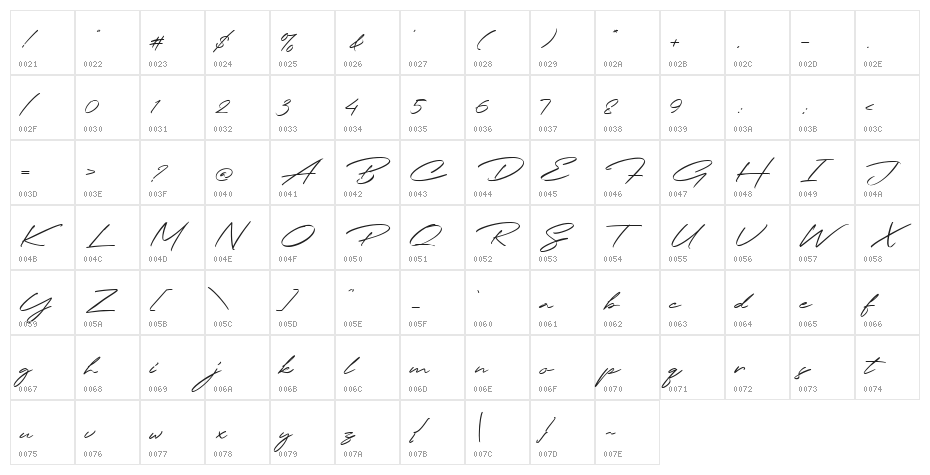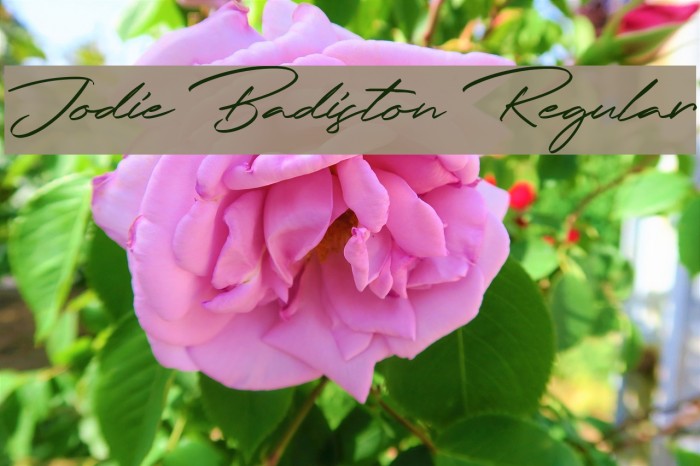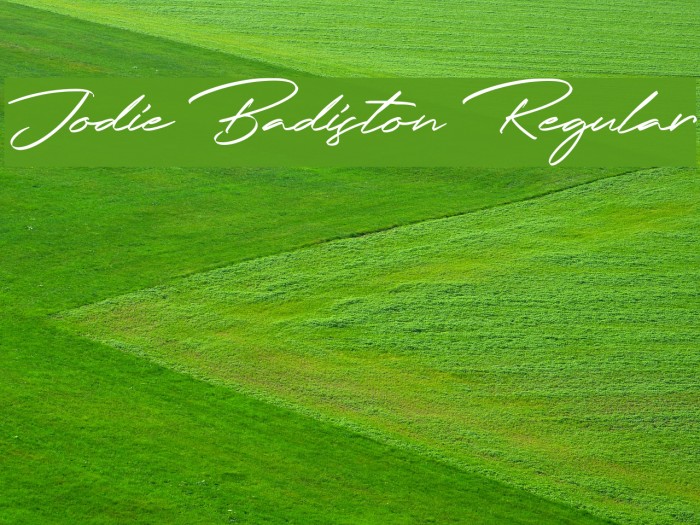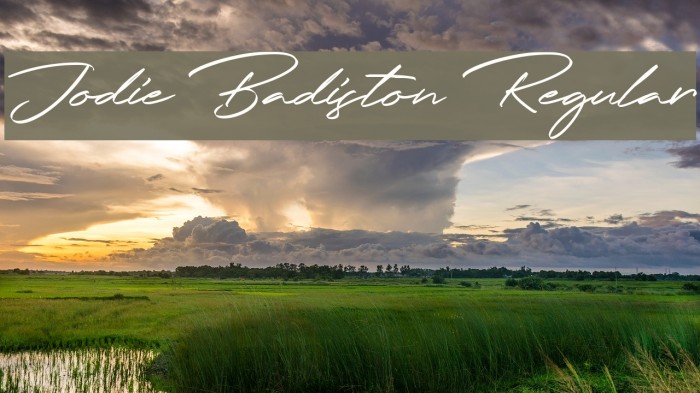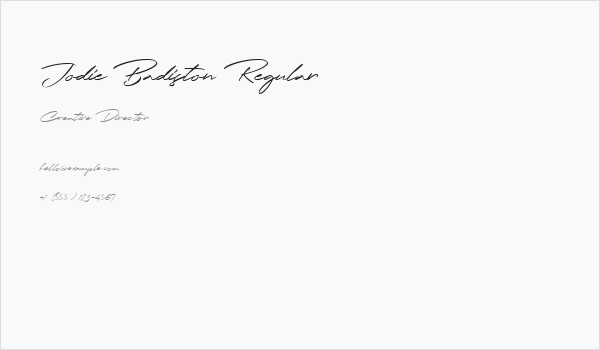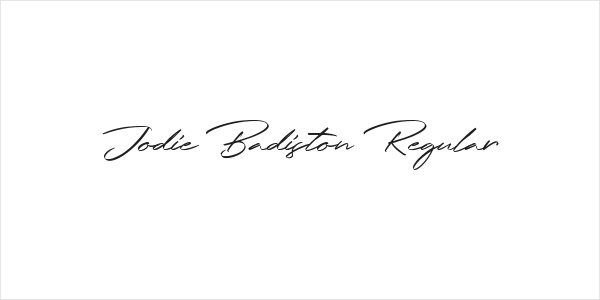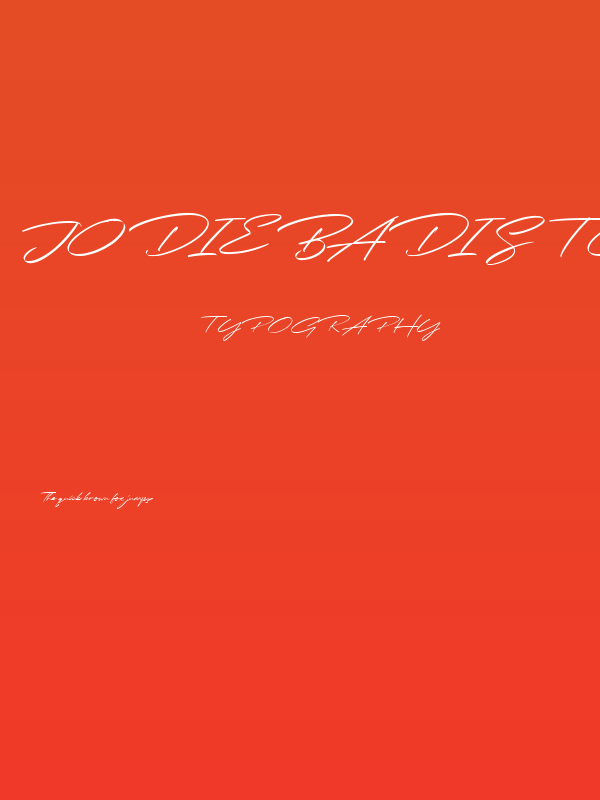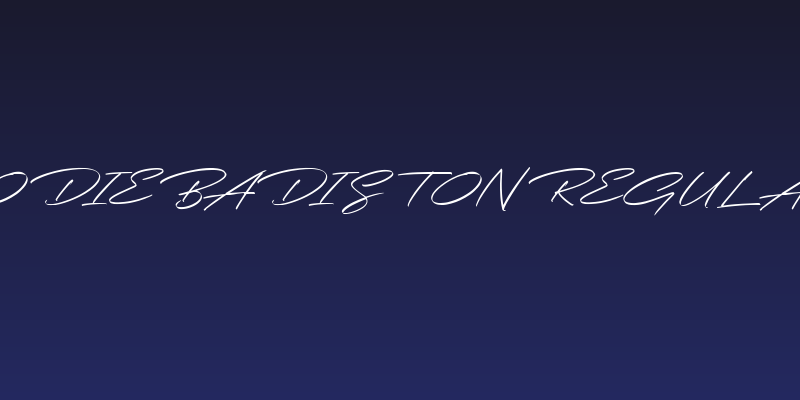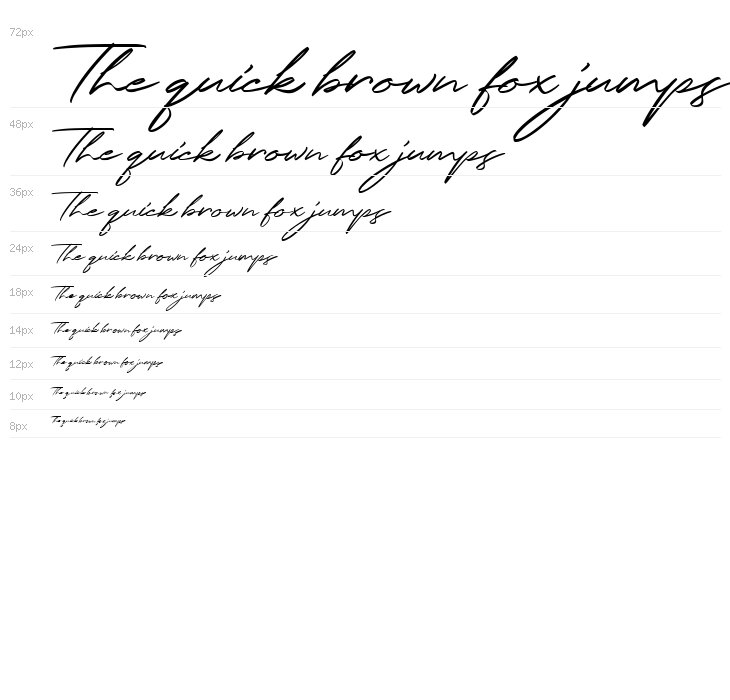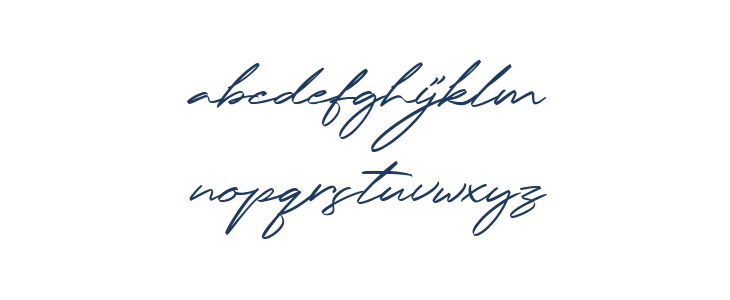
Jodie Badiston Regular Font
Jodie Badiston Regular Description
This elegant script font features a flowing, cursive style that mimics natural handwriting. The uppercase letters are slightly more structured, while the lowercase letters exhibit a more fluid and connected appearance. The numerals and special characters maintain the same graceful aesthetic, ensuring consistency across all text. The strokes are smooth and slightly slanted, adding a sense of movement and sophistication. This font is ideal for projects that require a personal touch, such as invitations, greeting cards, or branding materials. Its delicate yet legible design makes it suitable for both digital and print media.
| Overall Style | Elegant, Handwritten |
| Proposed Projects | Ideal for wedding invitations, greeting cards, personal branding, and elegant logos. |